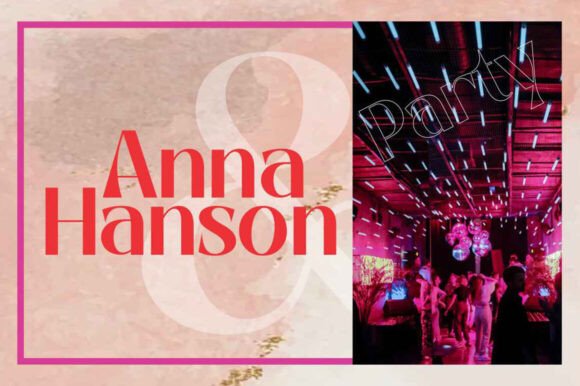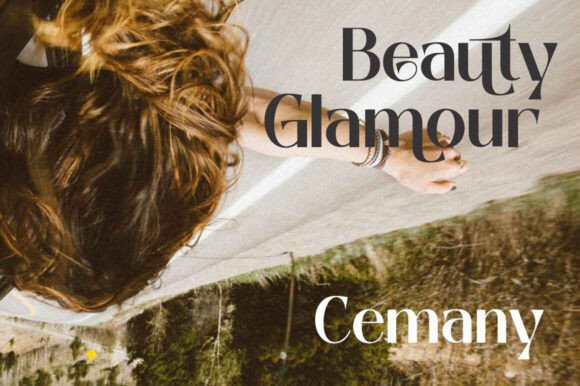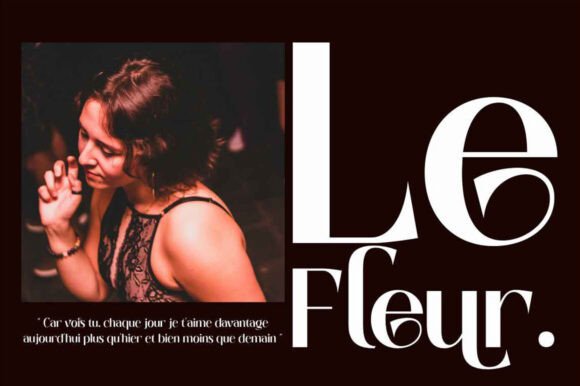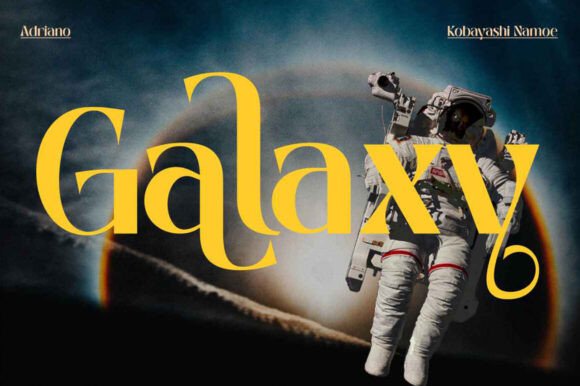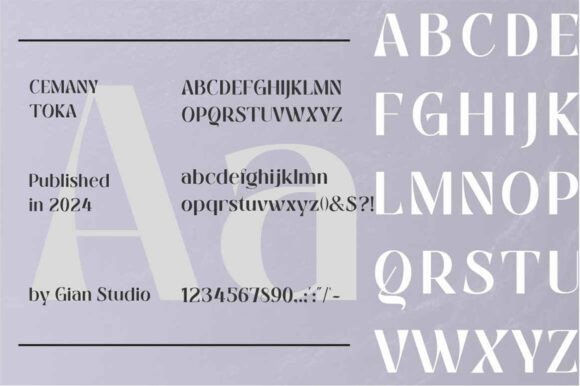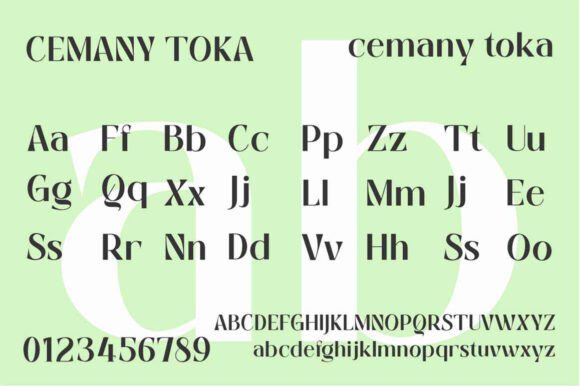
Unlock the Sophistication of Cemany Toka Font
Have you ever been working on a project, pouring your heart and soul into it, and then suddenly, a font catches your eye and elevates the entire design? That’s exactly what happens when you discover the Cemany Toka Font. This stunning ligature and alternate typeface is designed to evoke a sense of luxury and premium quality, making it perfect for formal designs.
Whether you’re creating a logo, headline, or title, Cemany Toka Font is the perfect choice. Its versatility makes it suitable for a wide range of applications, from invitations and labels to magazines, books, and advertising materials. What makes this font truly valuable for designers is its ability to add a touch of sophistication and elegance to any project, setting it apart from more generic fonts.
Cemany Toka Font Key Features
- Unique Characteristics: Cemany Toka Font features a unique blend of traditional and modern elements, with intricate details and ornaments that set it apart from other fonts.
- Font Style: Cemany Toka Font is available in both regular and bold styles, offering flexibility for designers to create contrasting and visually appealing text layouts.
Cemany Toka Font Review
Overall, I think the Cemany Toka font has some great qualities, but it also has some limitations. Let’s dive into the details.
- The font’s unique, modern design is definitely eye-catching. It’s perfect for making a statement in your designs.
- The font is highly customizable, which is great for designers who like to get creative with their typography.
- The Cemany Toka font is available in a wide range of weights and styles, making it easy to find the perfect fit for your project.
- The font may not be suitable for body text, as it can be difficult to read in smaller sizes.
- The unique design of the font can sometimes make it look unprofessional or inconsistent in certain contexts.
Overall, I think the Cemany Toka font is a great addition to any designer’s toolkit. While it may have some limitations, its unique design and high level of customizability make it a great choice for making a statement in your designs. Just be sure to use it thoughtfully and in the right context.
Tips for Getting the Most Out of Cemany Toka Font
For best results, use Cemany Toka Font in conjunction with bold or italic text to create visual interest.
Experiment with different font sizes and colors to create a unique and eye-catching design.
Cemany Toka Font is ideal for:
- Creating eye-catching headlines and titles.
- Designing logos and branding materials.
- Adding a unique touch to presentations and documents.